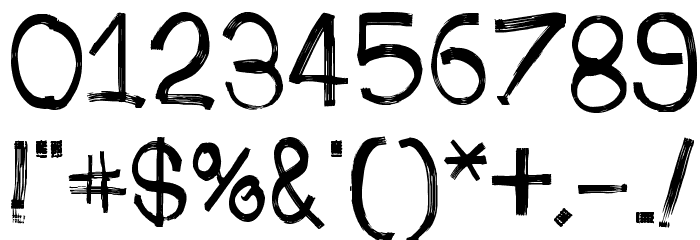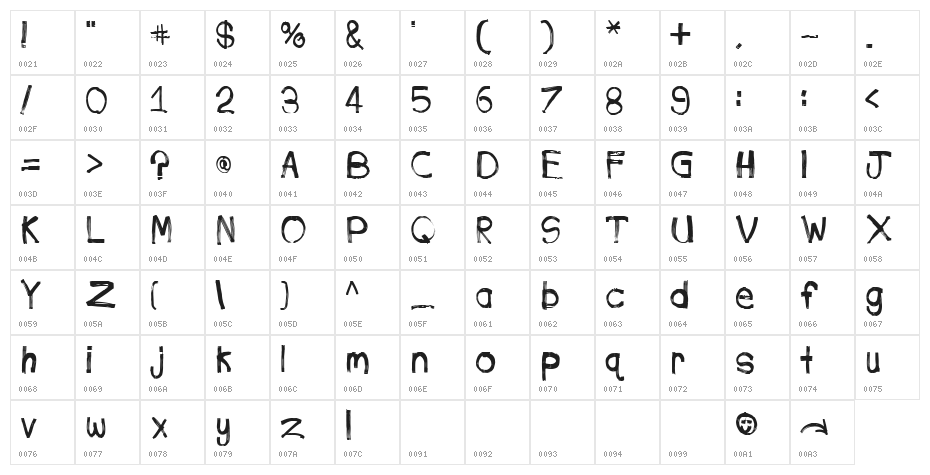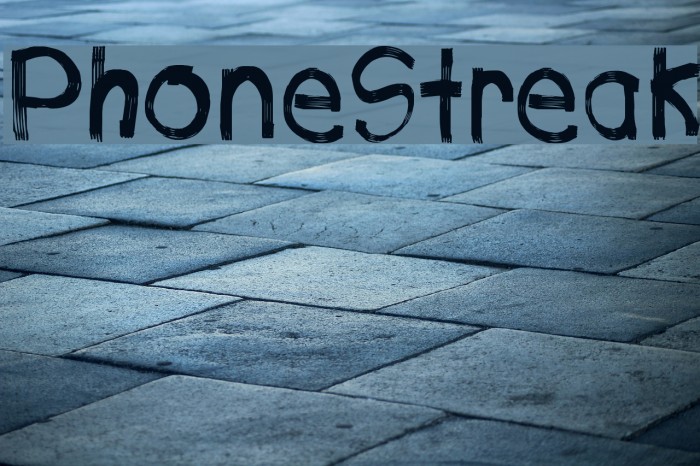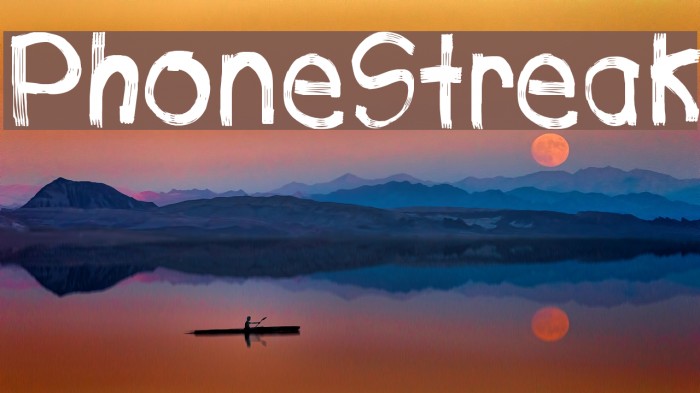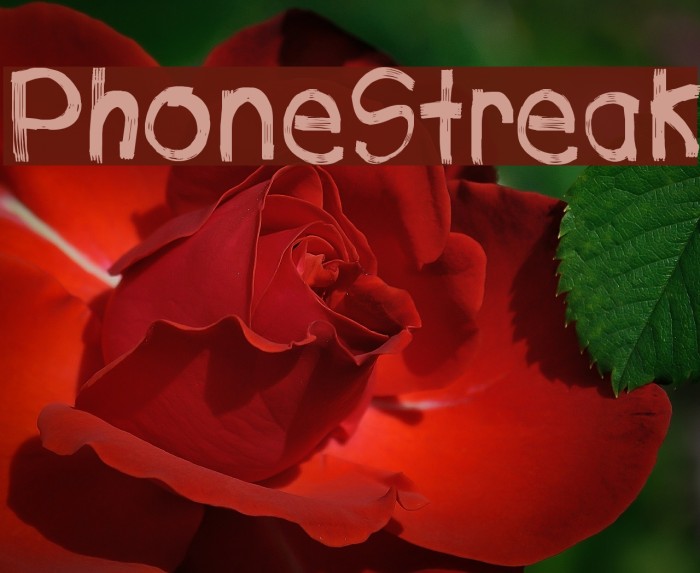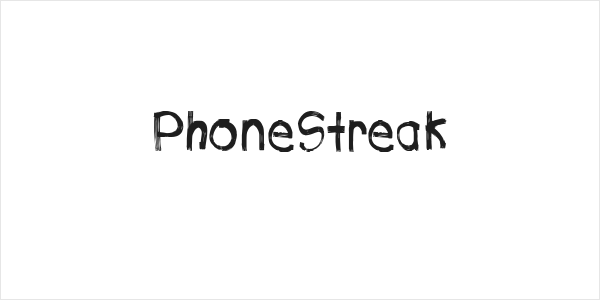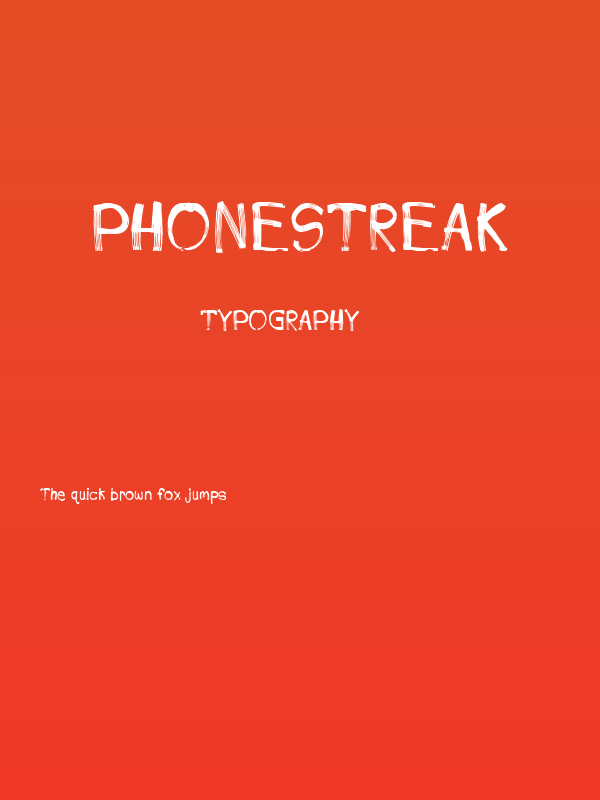
PhoneStreak Font
PhoneStreak Description
This font features a bold, hand-drawn style with a playful and artistic flair. The characters exhibit a brush-like texture, giving them a dynamic and energetic appearance. The strokes are uneven, adding to the casual and informal feel of the typeface. Each letter maintains a consistent height, but the varying stroke widths and irregular edges contribute to its unique charm. The font includes both uppercase and lowercase letters, numbers, and a range of special characters, making it versatile for creative projects. Its distinctive style is ideal for designs that require a personal touch or a sense of spontaneity.
| Proposed Projects | Ideal for posters, greeting cards, children's books, and creative branding projects. |